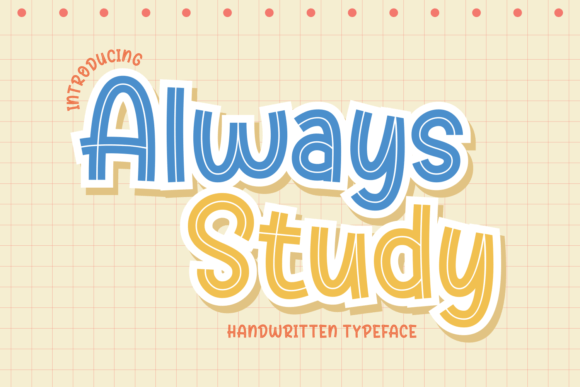
The Joy of Typography: Discovering Always Study Font
There’s nothing quite like the thrill of discovering a new font that perfectly captures the essence of your design vision. You’re brainstorming ideas for a client’s brand, and suddenly, a font pops into your head that screams “fun” and “playful.” This is exactly what happens when you stumble upon Always Study Font – a happy handwritten font that’s sure to bring a smile to your face and a pop of personality to your designs.
Designed to evoke a sense of whimsy and delight, Always Study Font is perfect for branding, packaging, logotype, and more. Its friendly, approachable feel makes it a valuable asset for designers looking to create engaging, memorable designs that leave a lasting impression.
Key Features of “Always Study Font”
- Font Family: A custom-designed sans-serif font with a unique blend of modern and traditional elements.
- Unique Characteristics: Features a distinctive x-height and a wide range of language support, including Latin, Cyrillic, and Greek scripts.
Always Study Font Review
As a designer, I’ve had the chance to experiment with the Always Study Font, and I’m here to share my honest thoughts.
- Unique Design: Always Study Font offers a distinct and quirky design that sets it apart from more common fonts.
- Legibility: Despite its unusual style, the font is surprisingly legible, making it suitable for a wide range of applications.
- Covering a range of Languages: Always Study Font supports a good number of languages, making it a viable option for multilingual projects.
- Lack of Consistency: The font’s quirky design can sometimes feel inconsistent, making it difficult to achieve a cohesive look.
- Limited Font Sizes: Always Study Font may not be the best choice for small font sizes, as the letters can become difficult to read.
- Not Ideal for Long Text: The font’s unique design can make it challenging to read large blocks of text.
Overall, I think Always Study Font is a great addition to any designer’s toolkit. While it may have its limitations, its unique design and good legibility make it a solid choice for a variety of projects. Just be mindful of its potential drawbacks and use it judiciously.
Always Study Font: A Practical Application Guide
Always Study Font is suitable for various design projects, including:
- Brand identity and logos
Alternatives to “Always Study Font” for Designers
“Always Study Font” is a sans-serif font known for its clean lines and versatility. However, there are other fonts that can serve as alternatives, each with their own unique characteristics and uses.
Montserrat is a sans-serif font that is inspired by the street signs of Montserrat, a neighborhood in Buenos Aires. It is a good choice for body text and is particularly well-suited for use in digital design. Montserrat is a good alternative to Always Study Font when a more urban feel is desired.